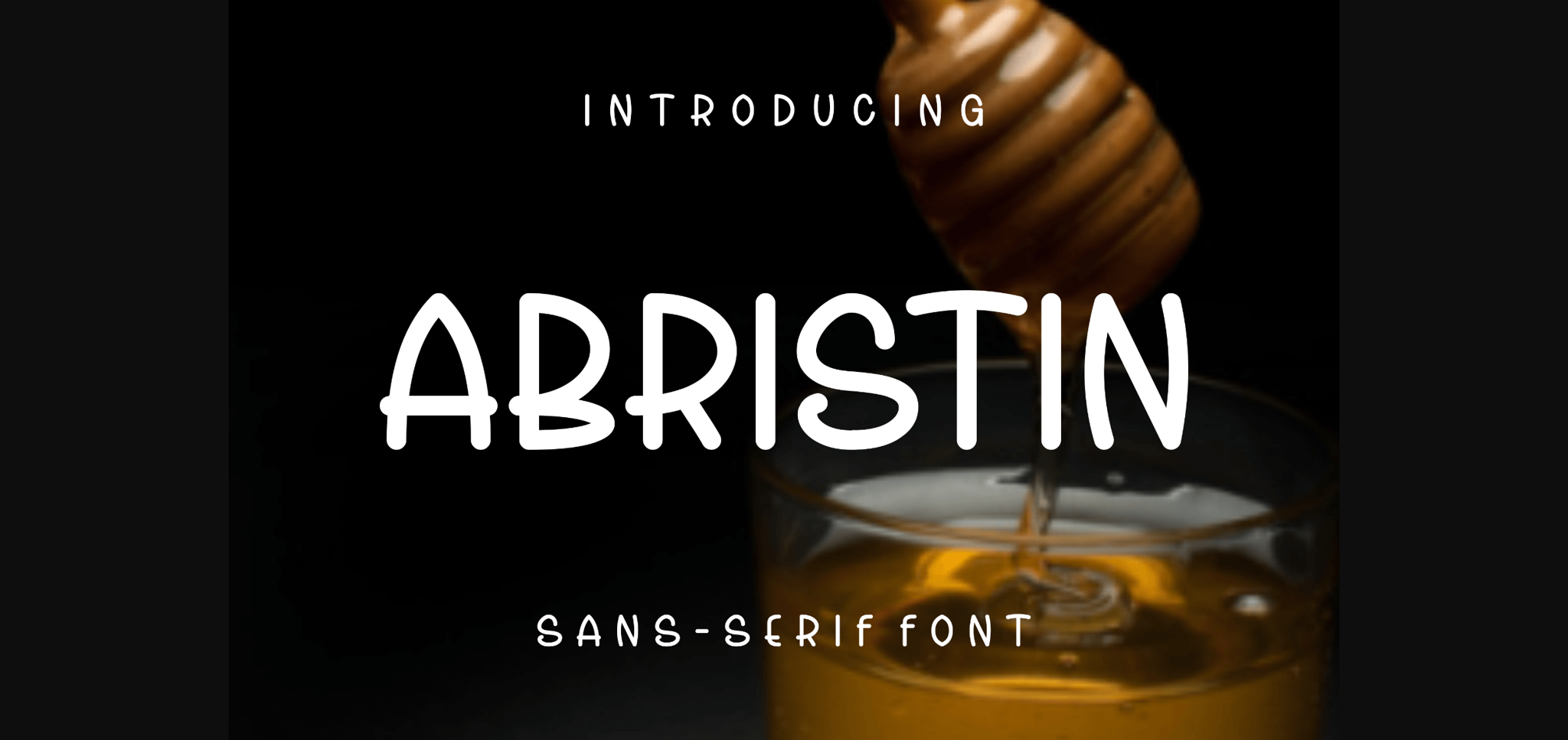
About Abristin Font
Abristin is a neat and casual sans serif font. Masterfully designed to become a true favorite, this font has the potential to bring each of your creative ideas to the highest level!